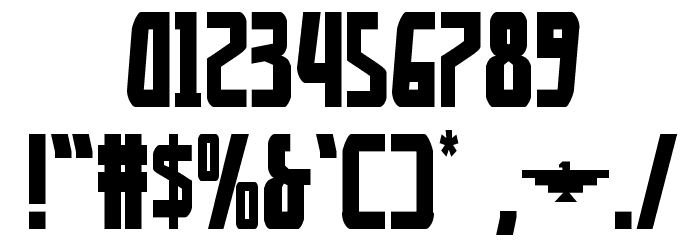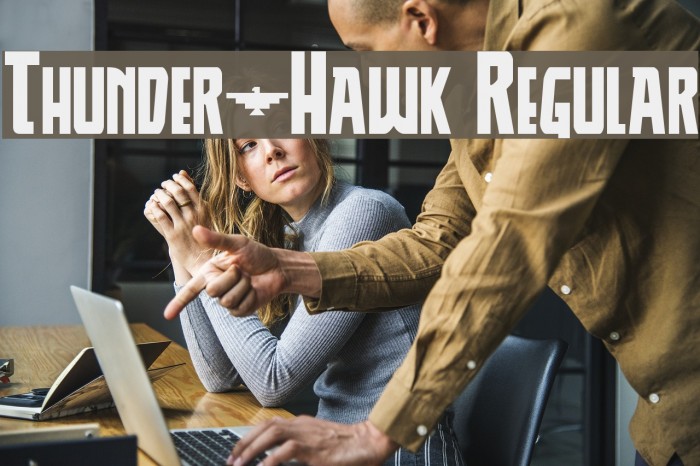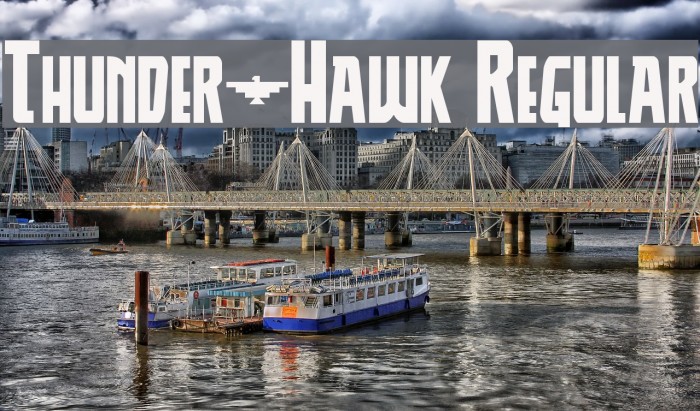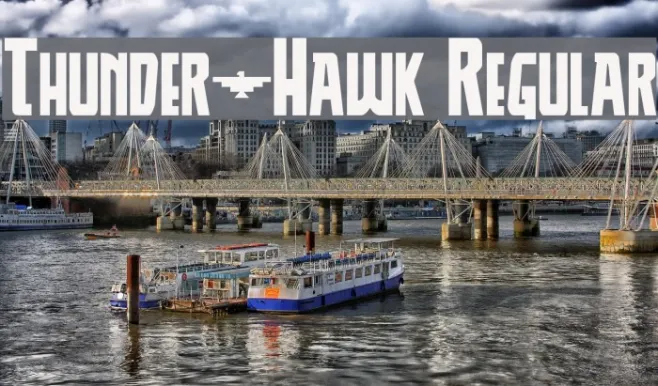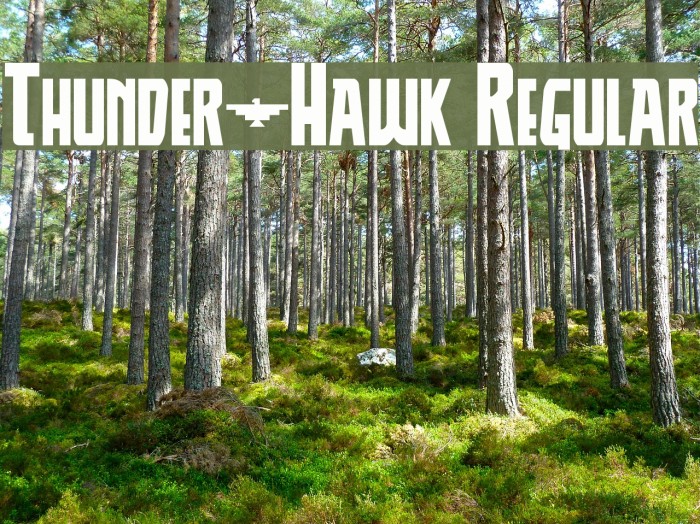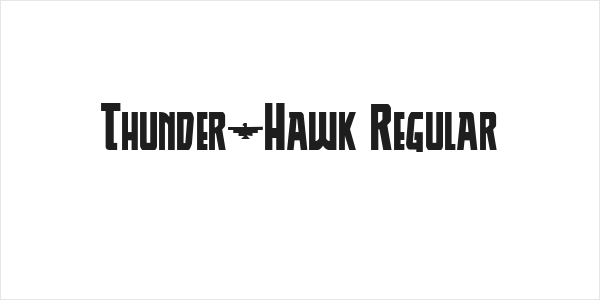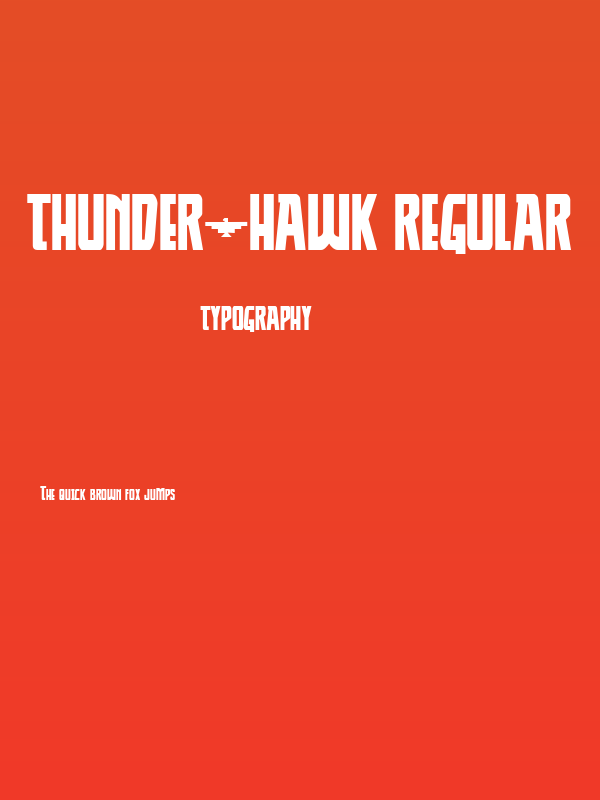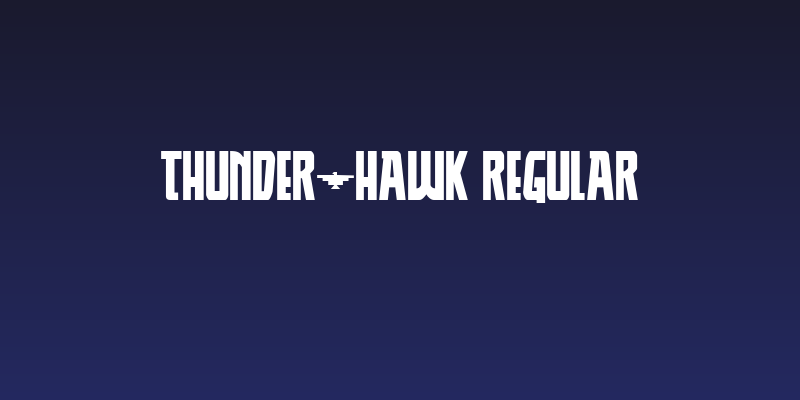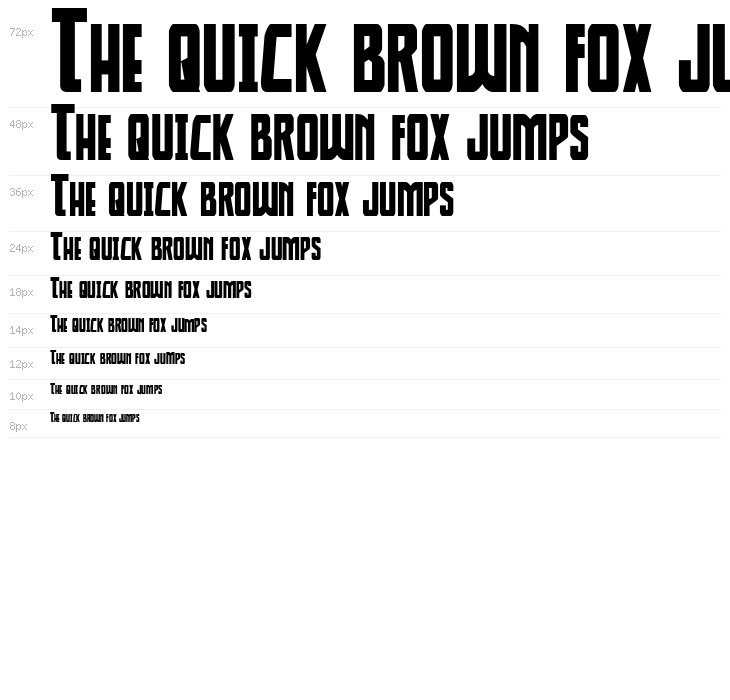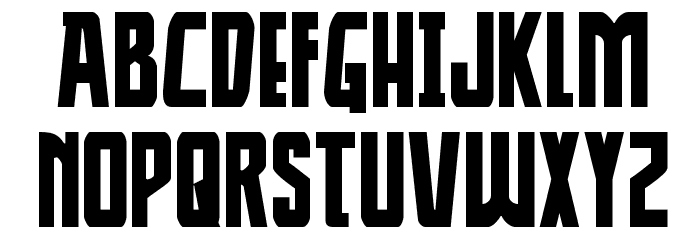
Thunder-Hawk Regular Font
Thunder-Hawk Regular Description
This font features a bold and striking design with a strong geometric structure. The characters are tall and narrow, with sharp angles and a consistent thickness throughout. The uppercase letters dominate the design, giving it a powerful and commanding presence. The numbers and special characters maintain the same boldness, ensuring uniformity across all elements. Its unique style makes it stand out, perfect for creating impactful visual statements.